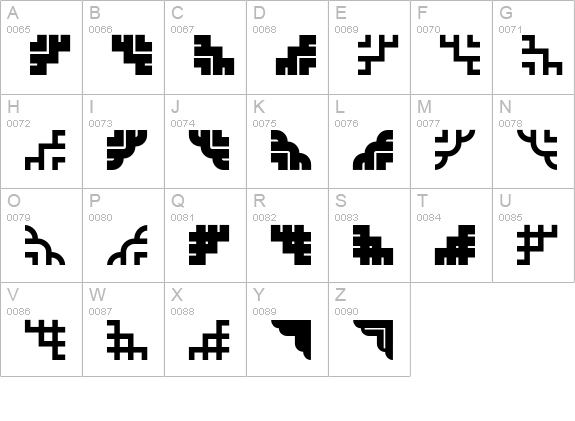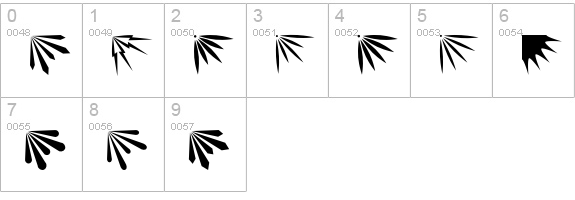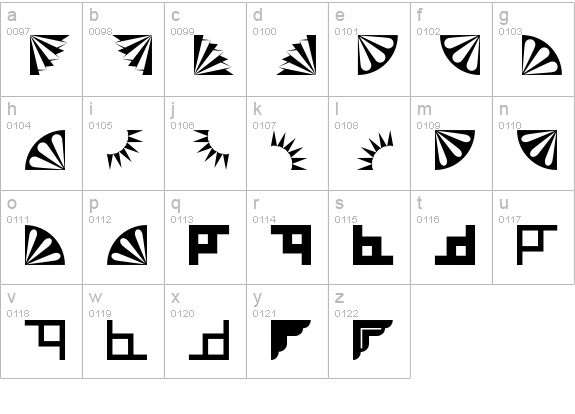
AltemusCorners Font Details
AltemusCorners font is a unique and eye-catching typeface that adds a touch of creativity to any design project. With its intricate corners and stylish curves, this font is perfect for bringing a modern and sophisticated feel to your creations. Whether you're designing a logo, poster, or website, AltemusCorners font will surely make your text stand out. The best part? AltemusCorners font is completely free to download at FontsMarket.com. You can easily access this versatile font and use it in your personal and commercial projects without any restrictions. Don't miss out on the opportunity to elevate your designs with this beautiful and freely available font. Download AltemusCorners now and give your creations a fresh and contemporary look!